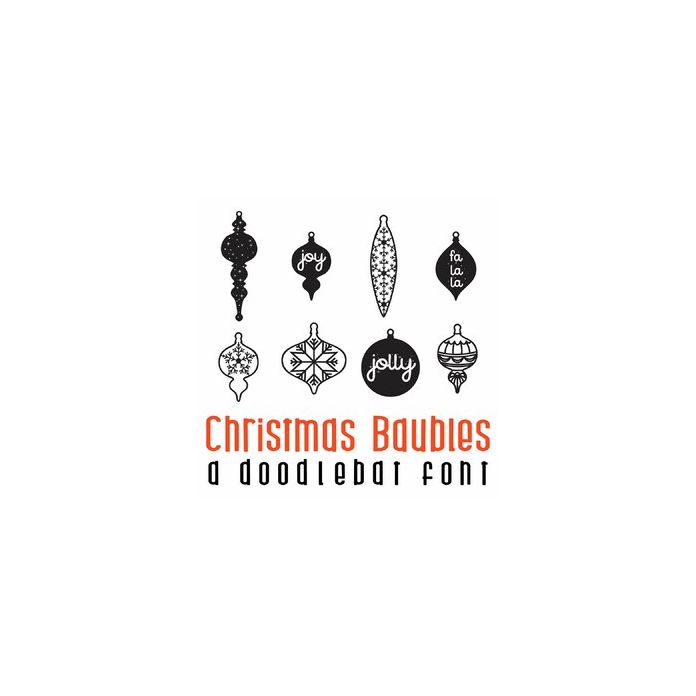
This fun doodlebat font features 26 different Christmas ornaments. Perfect for cards, gifts, decor, crafts, scrap book pages, planner stickers and more!